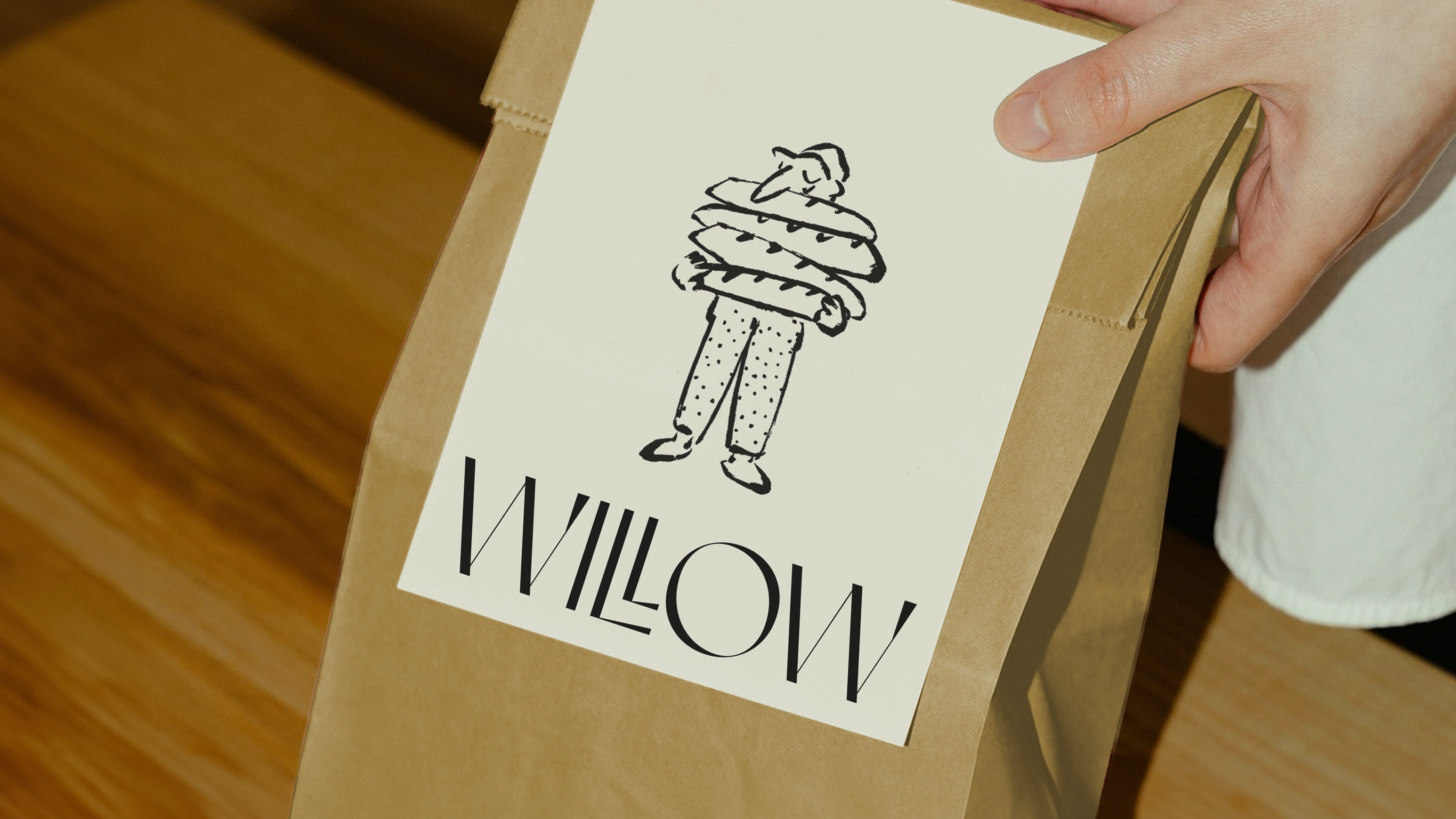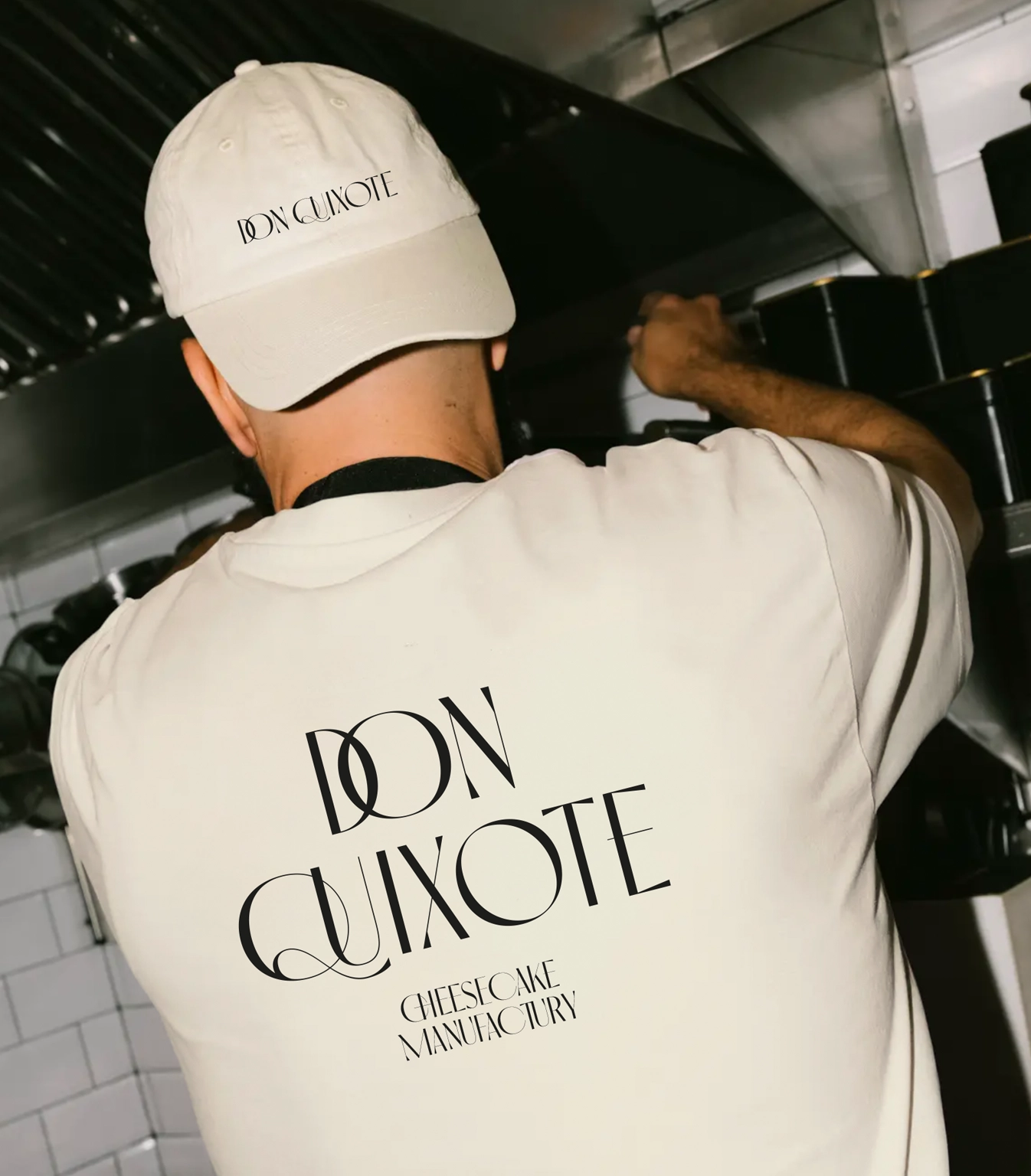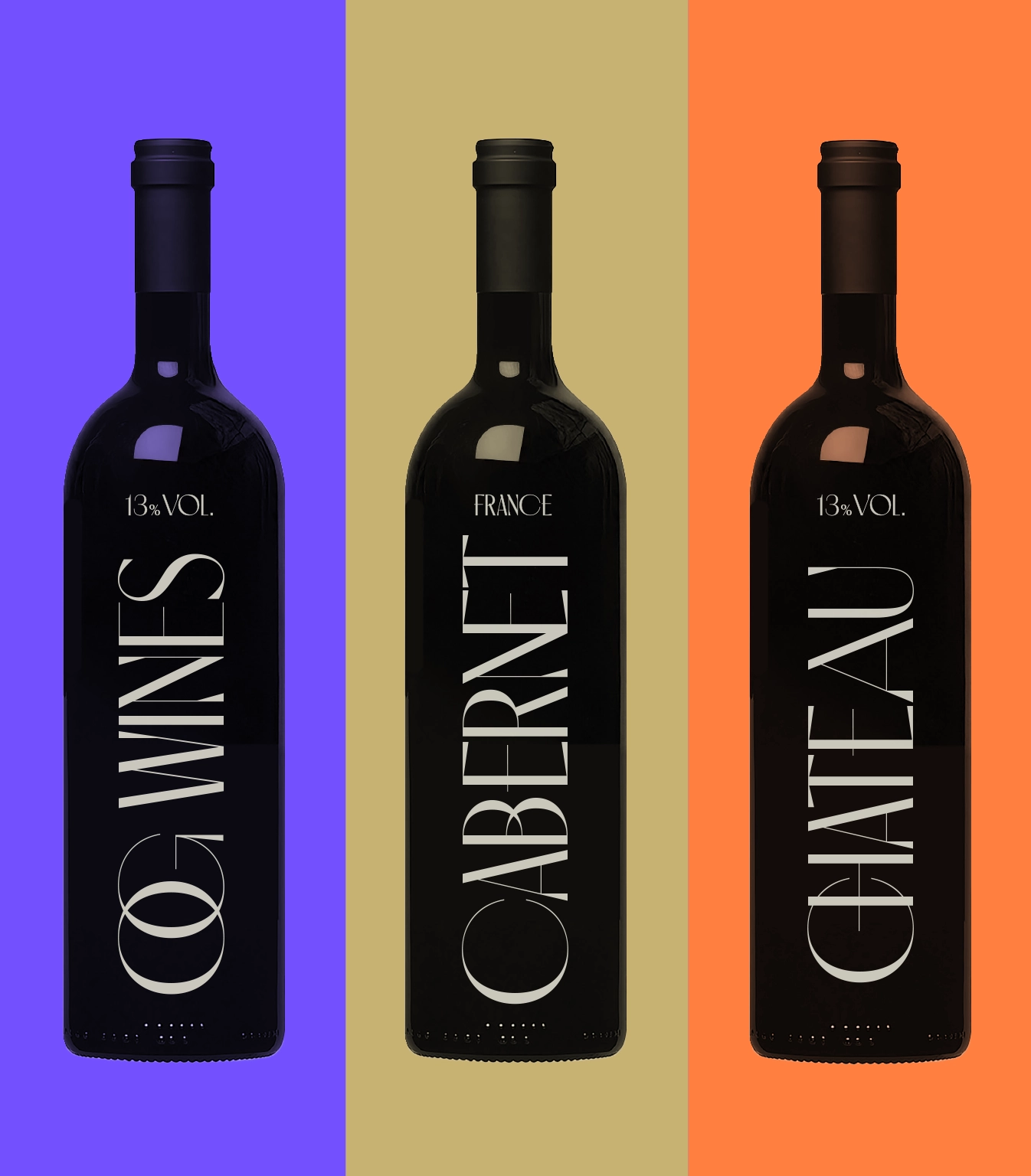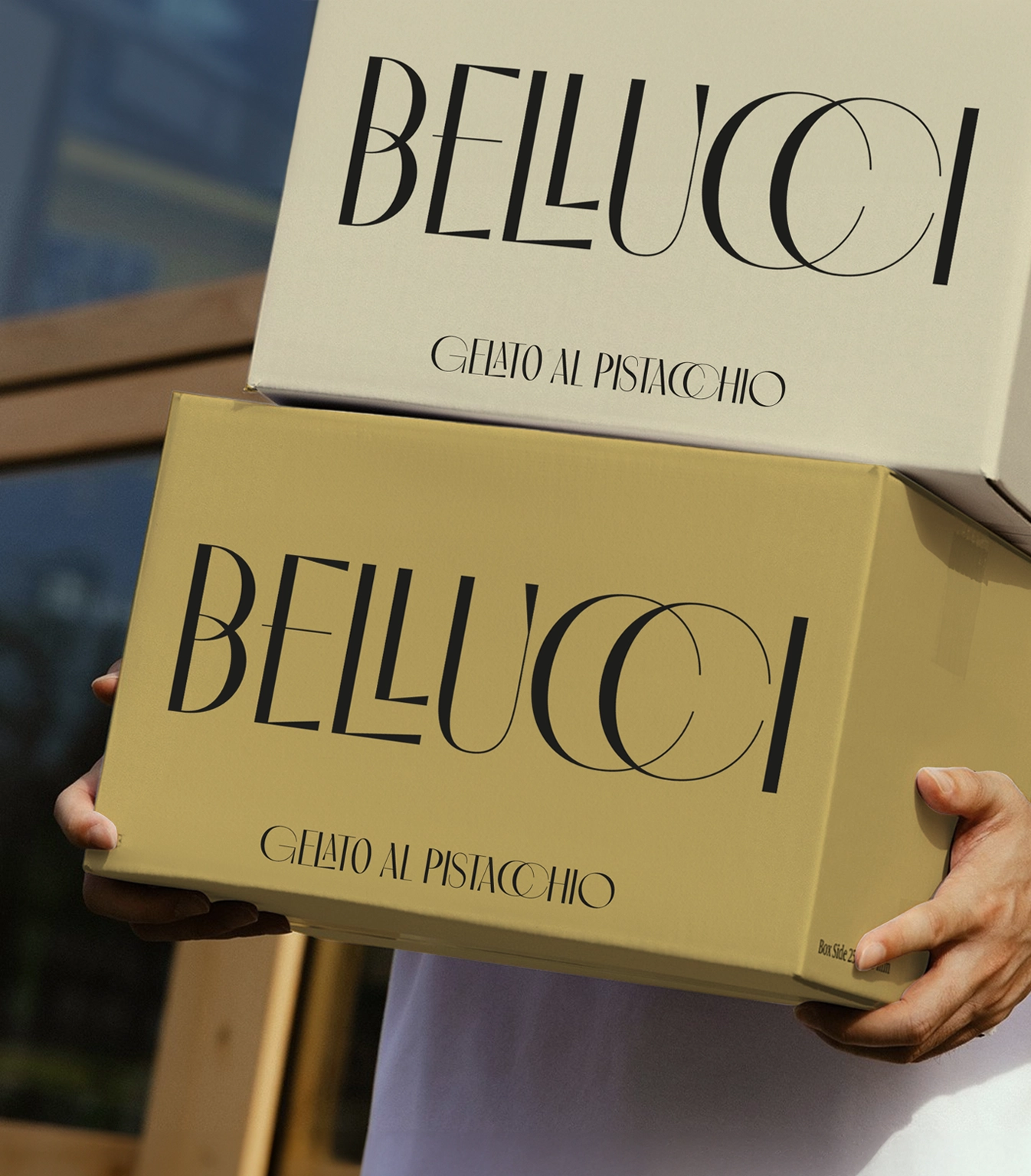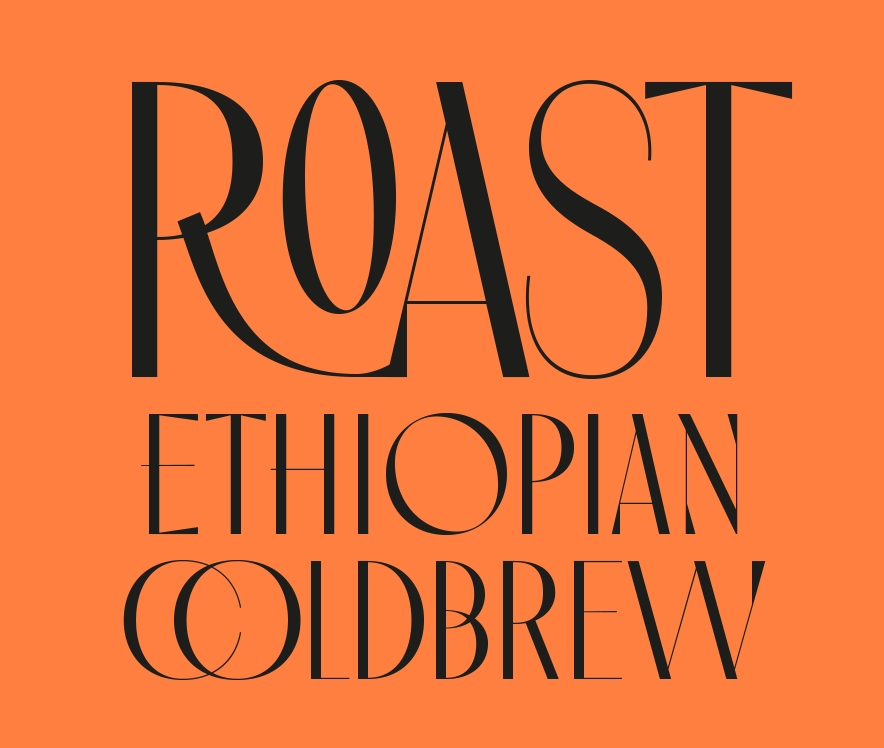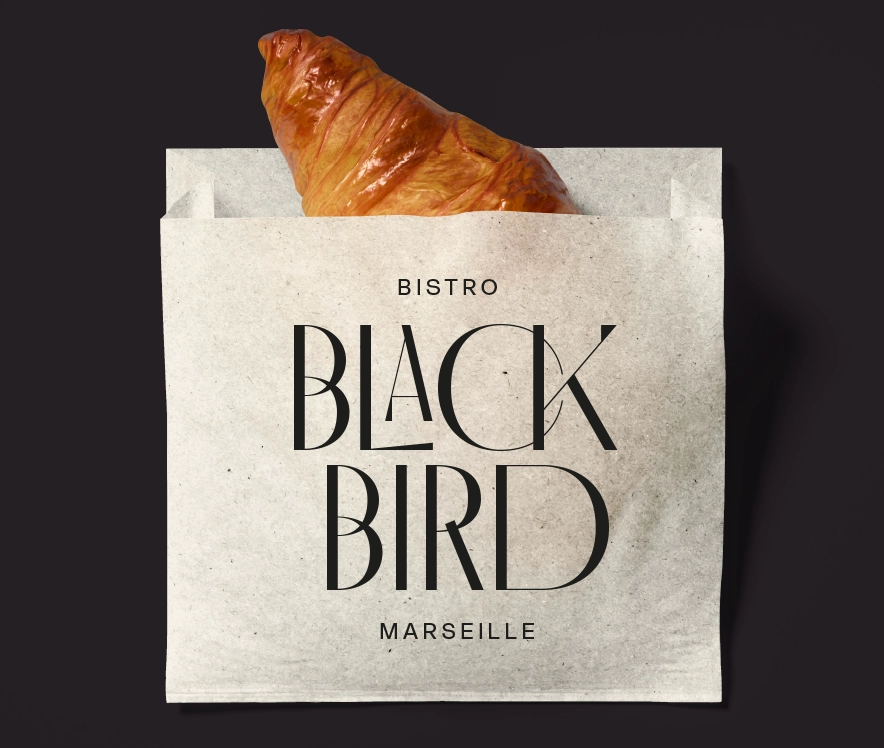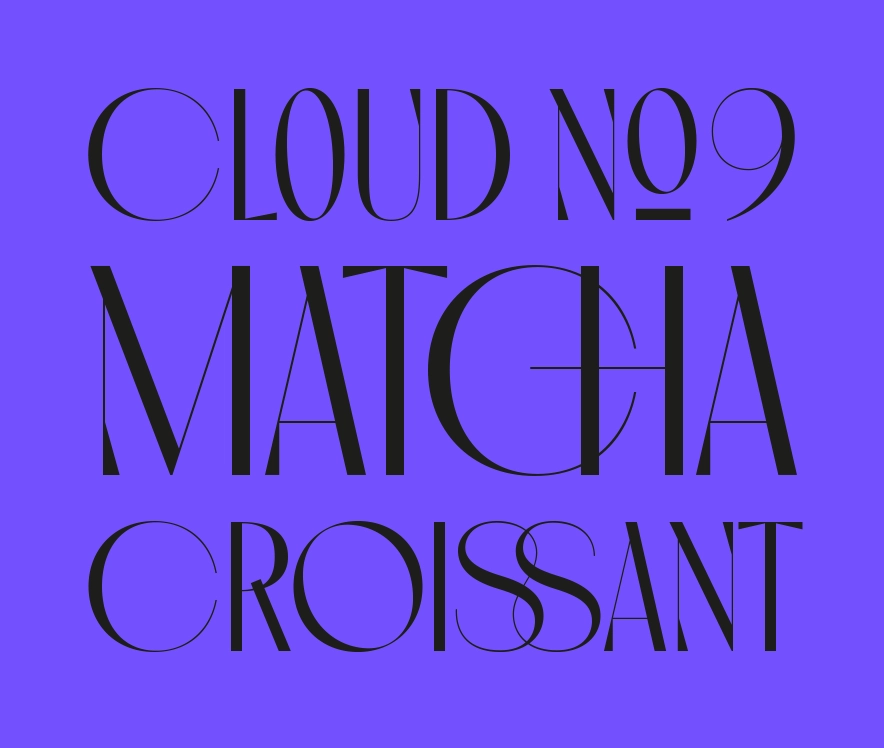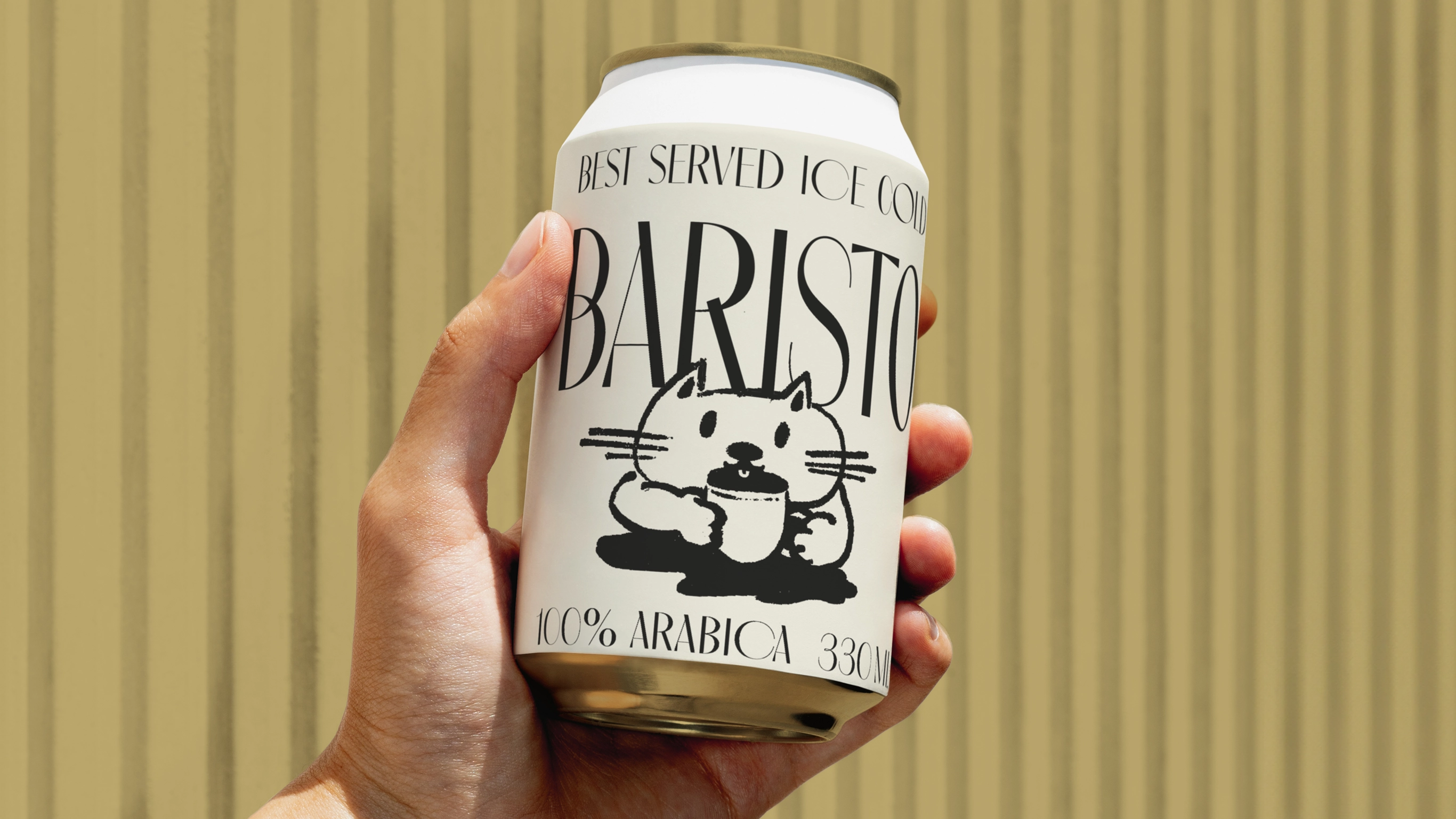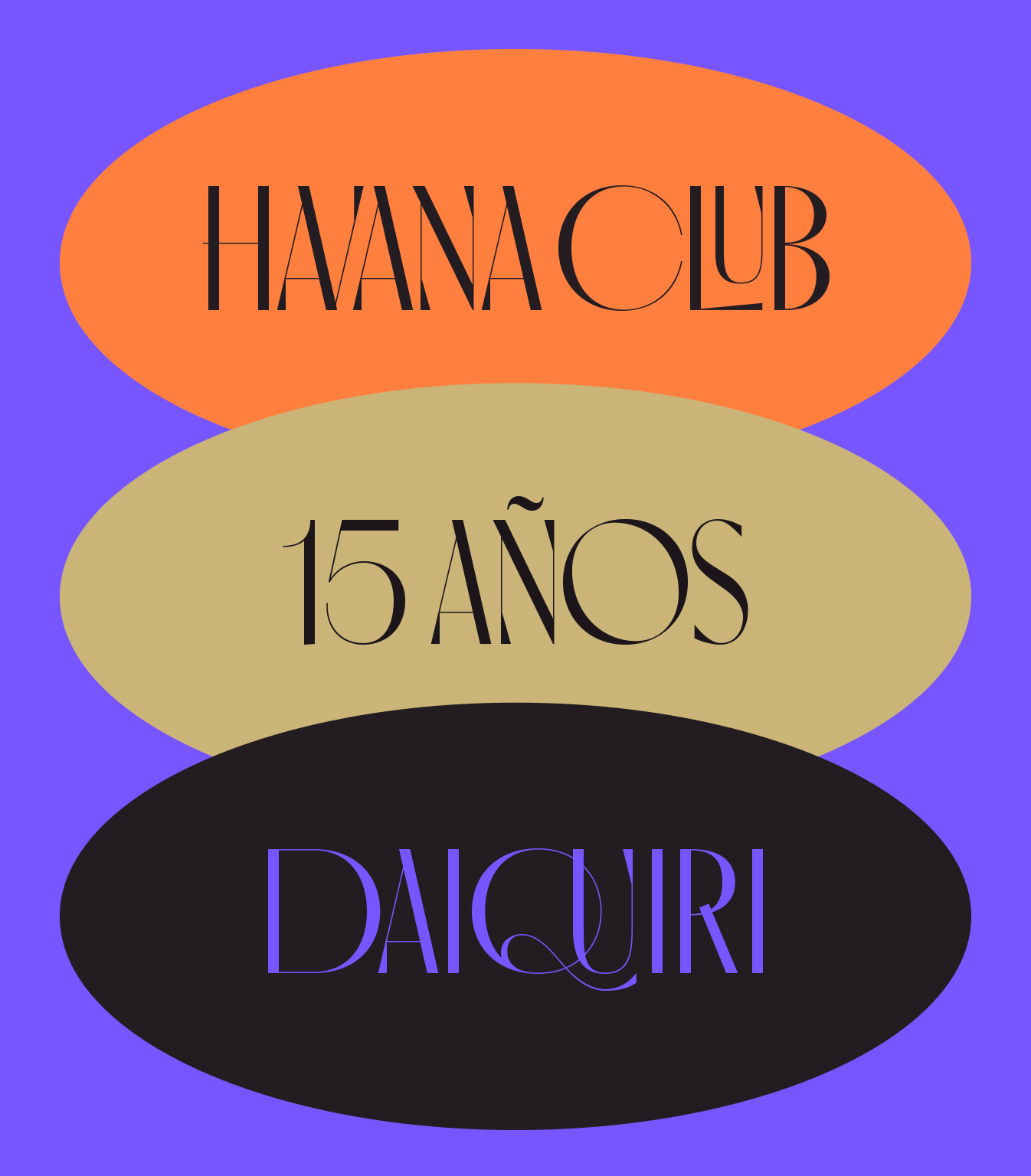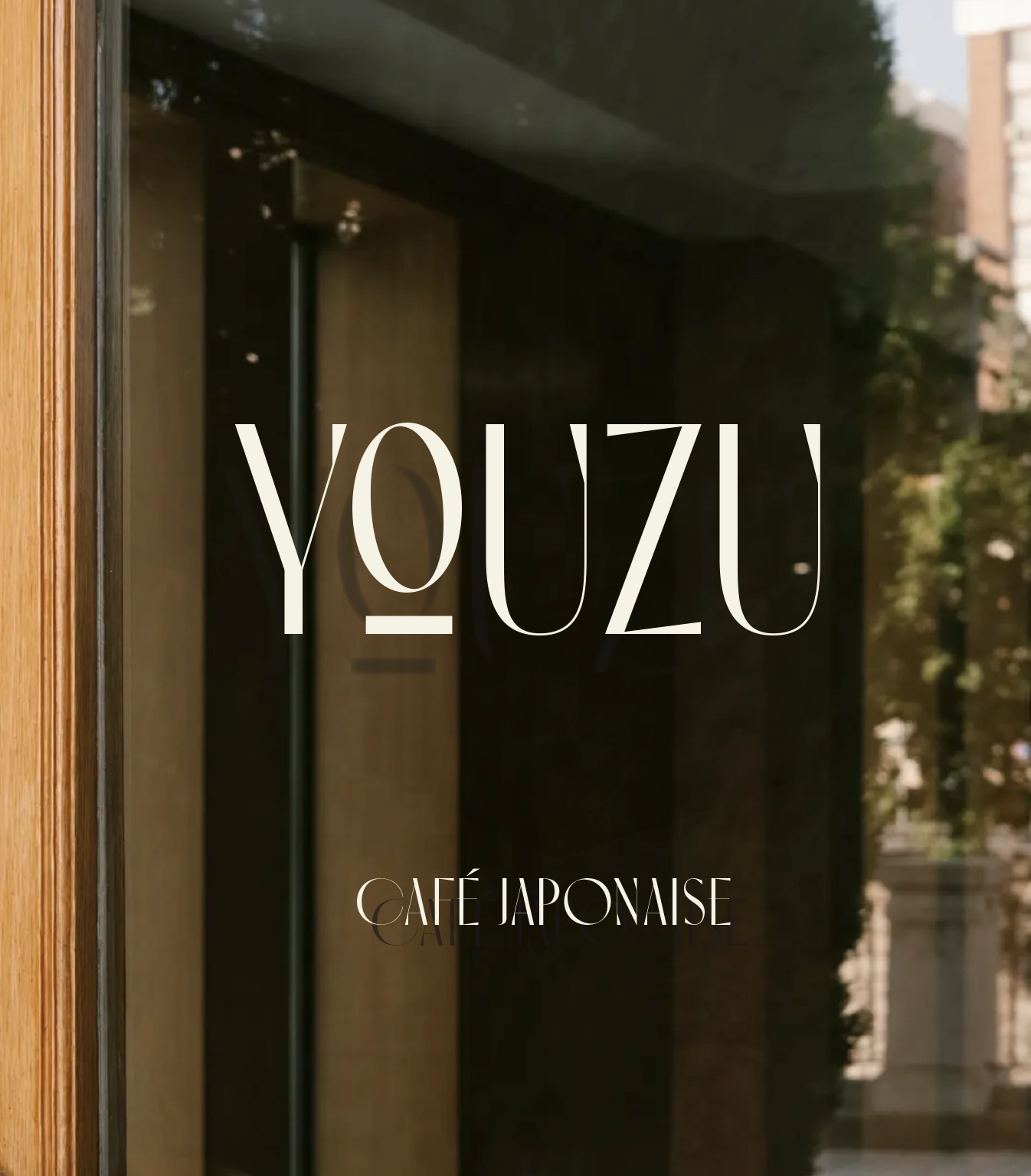
Picobello
This is a unique headline typeface that celebrates opulence and quality. Every curve and cut is considered, refined to perfection. Picobello carries a sense of effortless luxury and highest quality - ideal for fashion, beauty, or fine dining brands. For those who don’t settle for less. Crafted with precision and grace, it turns any brand into an object of desire.